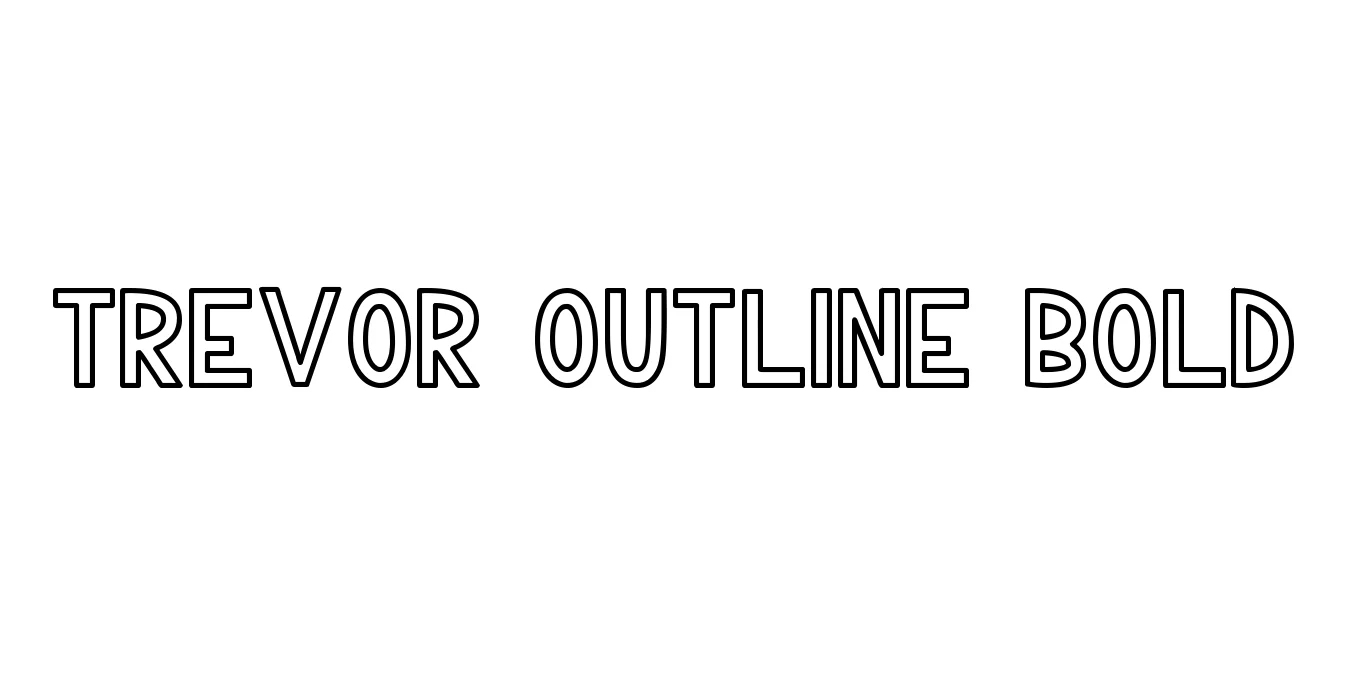
Trevor Outline Bold
Designed by SoftMaker
| Category | Sans Serif / Display |
| Designer | SoftMaker |
Trevor Outline Bold is a robust and impactful display typeface that belongs to the broader Trevor font family, known for its heavy, sans-serif architecture. This specific variant features thick, well-defined borders with a hollowed center, allowing for creative layered typography or high-contrast designs. Its roots are firmly planted in the industrial design aesthetic of the late 20th century, where bold, geometric shapes were utilized to command attention in advertising and editorial layouts.
The historical significance of Trevor Outline Bold lies in its versatility across various media platforms. By stripping away the solid fill of the original bold weight, it provides a lighter visual footprint while maintaining the same authoritative presence. This makes it an excellent choice for designers looking to blend modern minimalism with retro-inspired bold signage, ensuring readability and stylistic flair in both print and digital environments.
Trevor Outline Bold Best Uses
Excellent for magazine covers and high-impact headlines.
Ideal for creating distinctive logos with a structured, architectural feel.
Perfect for promotional banners and social media graphics that require a bold presence.
Great for posters and event flyers where a retro or industrial look is desired.